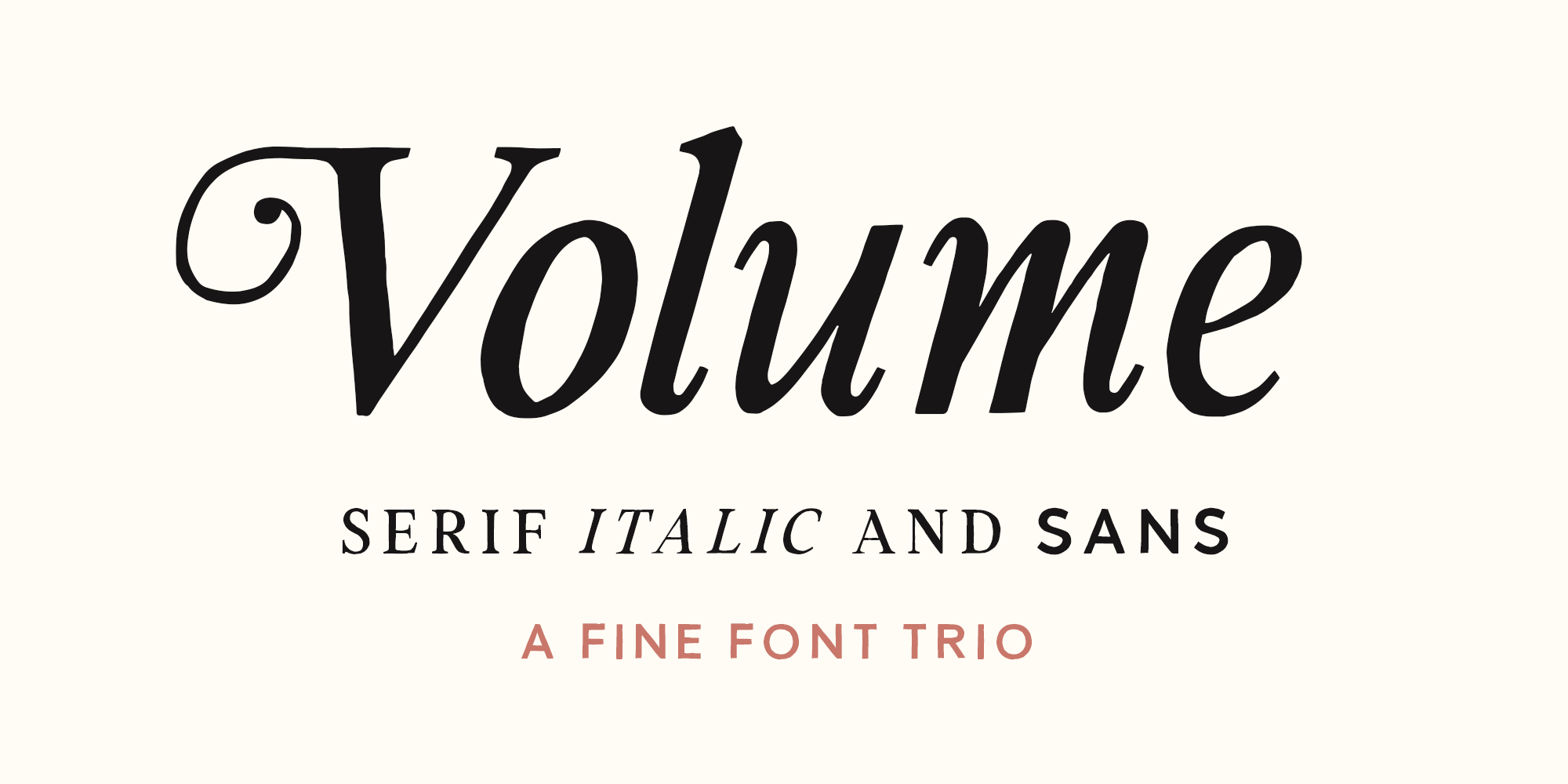
Volume TC Font is perfect for audio equipment branding, sound engineering materials, music production software, recording studio signage, DJ event posters, acoustic design projects, volume control interfaces, and professional audio documentation.
What makes Volume TC Font exciting is its powerful sonic presence that captures the essential energy of sound and volume through bold, amplified letterforms. The robust character design and audio-inspired aesthetics create an atmosphere of acoustic power and professional sound engineering that resonates with music industry professionals and audio enthusiasts.
Volume TC Font family includes light, regular, medium, bold, and max versions, plus condensed and extended variations, each featuring audio symbols, sound wave ornaments, and acoustic decorative elements optimized for music industry applications.
Amplify your message with Volume TC Font Free Download, the ultimate choice for brands commanding attention in the competitive audio and music industry landscape. This powerful typeface embodies the essence of sonic excellence through letterforms that seem engineered for maximum impact and designed to cut through the noise with crystal clarity. The expertly calibrated characters feature acoustic proportions that ensure outstanding visibility while projecting the kind of professional authority that defines industry-leading audio equipment and recording studios. Music producers and sound engineers consistently select this font for projects requiring authentic connection to audio excellence combined with visual impact that matches the power of their sound. Its comprehensive collection of audio elements provides unlimited possibilities for creating memorable communications that celebrate the art and science of sound with technical precision and creative energy. Experience the transformative power of sonic typography that elevates standard audio marketing into expressions of acoustic mastery, establishing your brand as a leader in today's dynamic music industry where volume and clarity determine market success.